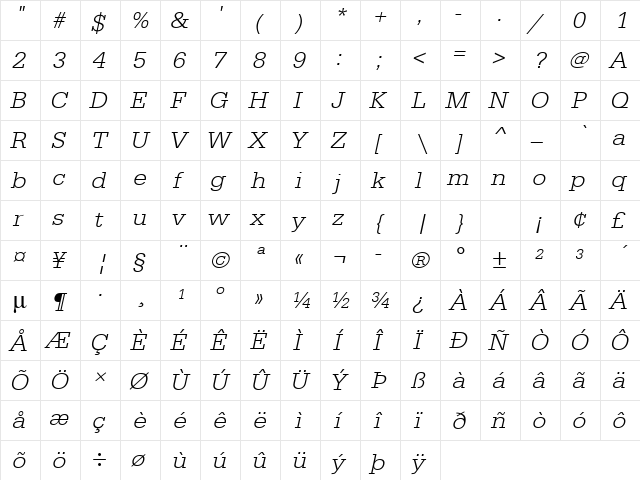
URWEgyptienneTLigWid Oblique
Design Context for URWEgyptienneTLigWid Typeface
URWEgyptienneTLigWid offers clean, dependable letterforms without strong stylistic allegiance, making it a practical choice for designers who need flexibility. The dynamic lean of this cut emphasises speed and emphasis in any layout.
Pro Tip: Use URWEgyptienneTLigWid for emphasis, pull quotes, and subheadings where its slanted energy can add rhythm to the layout.